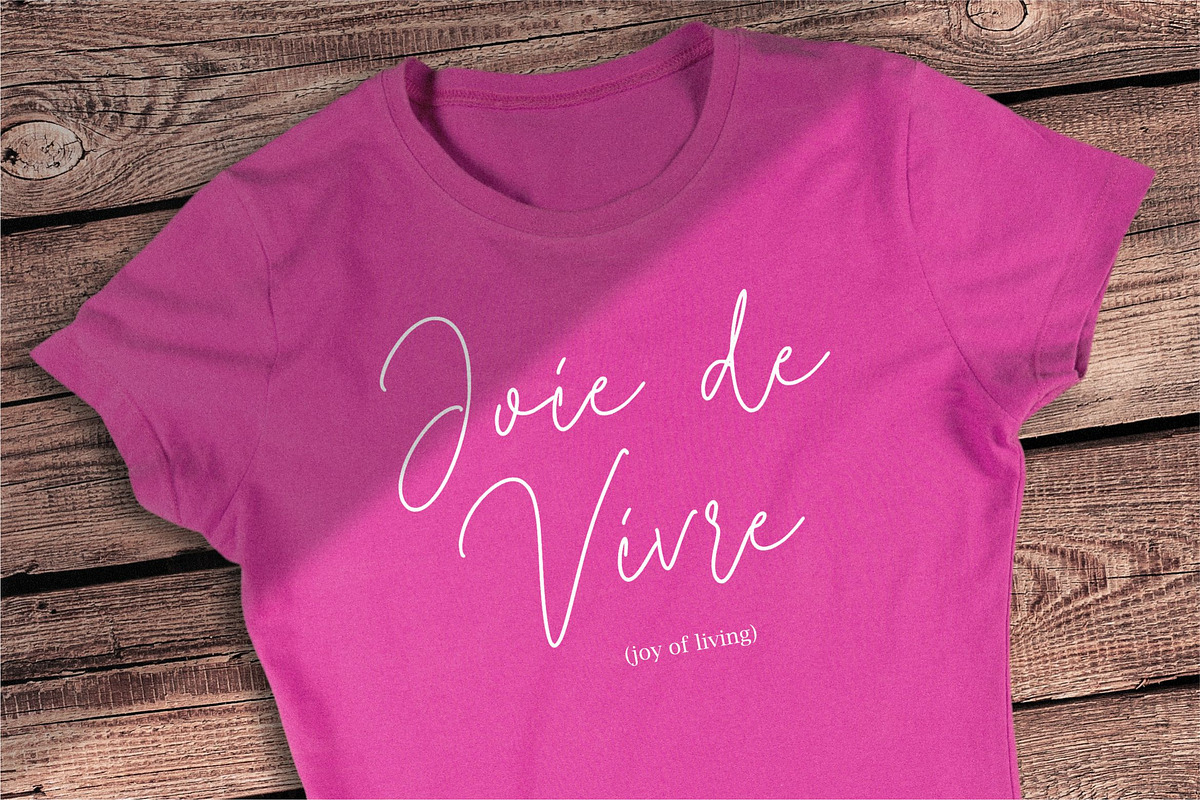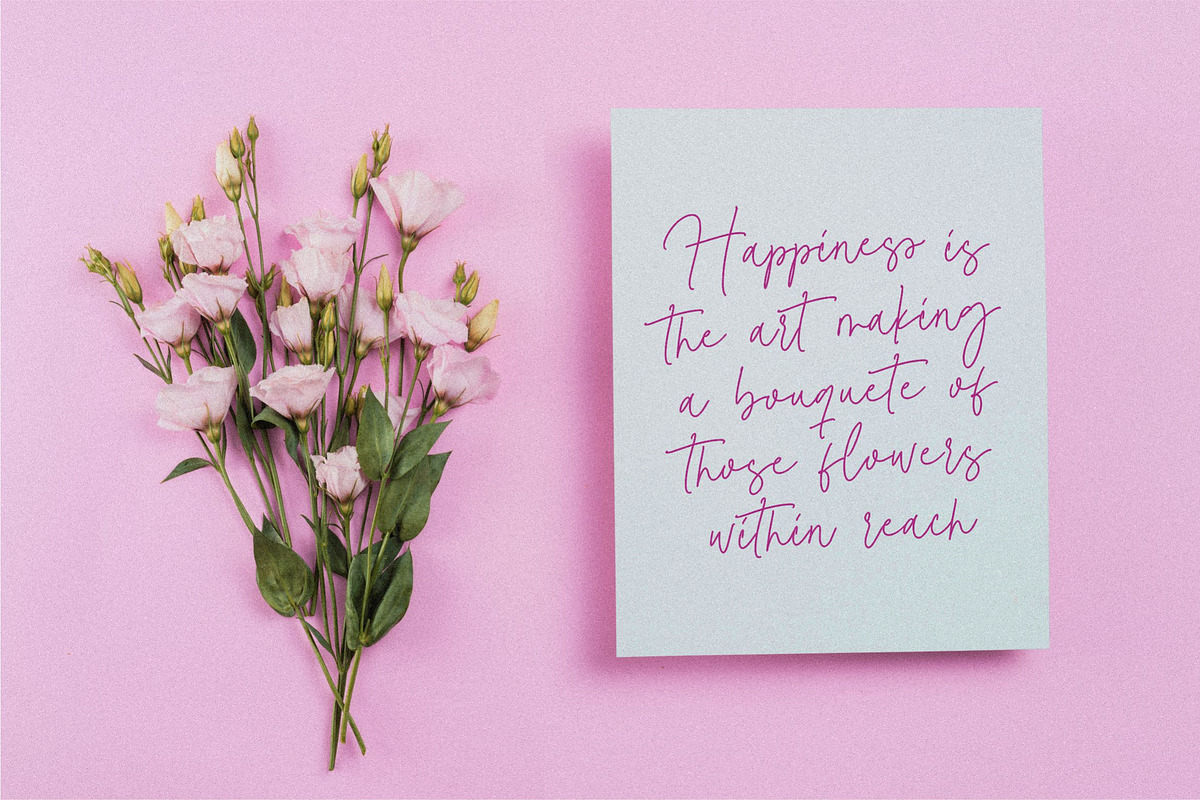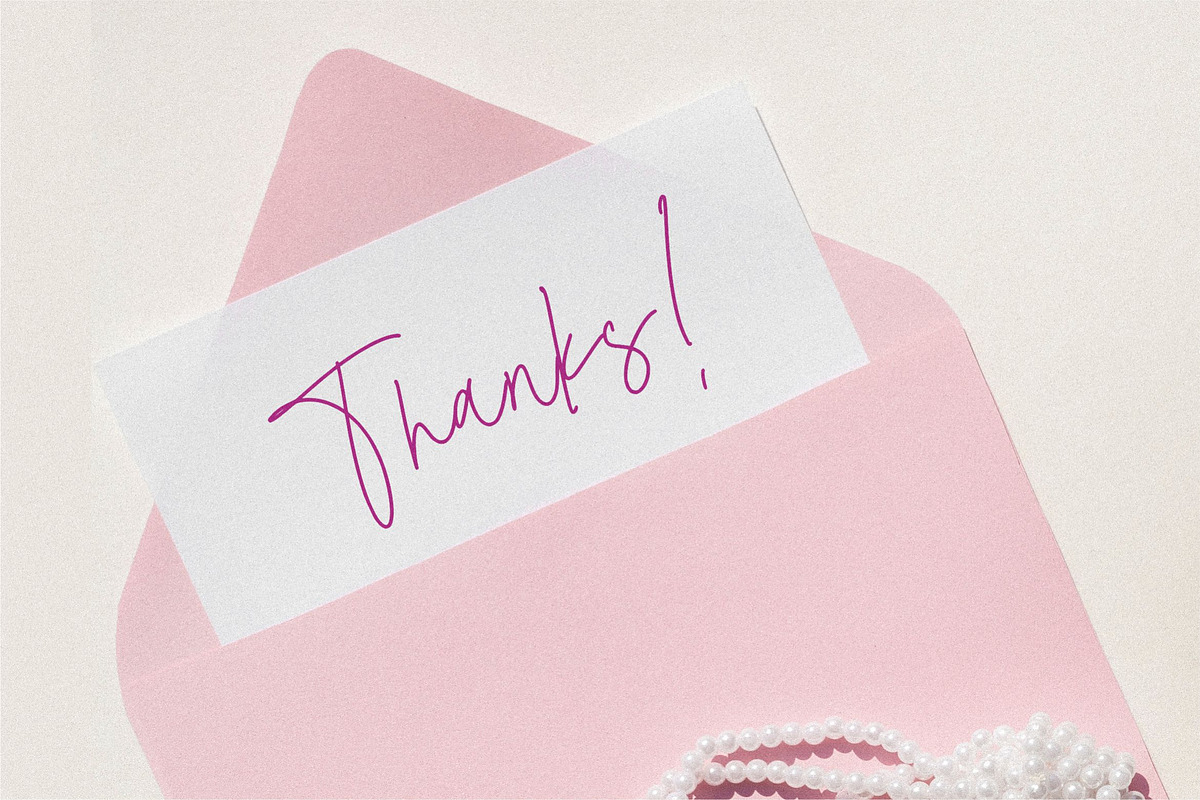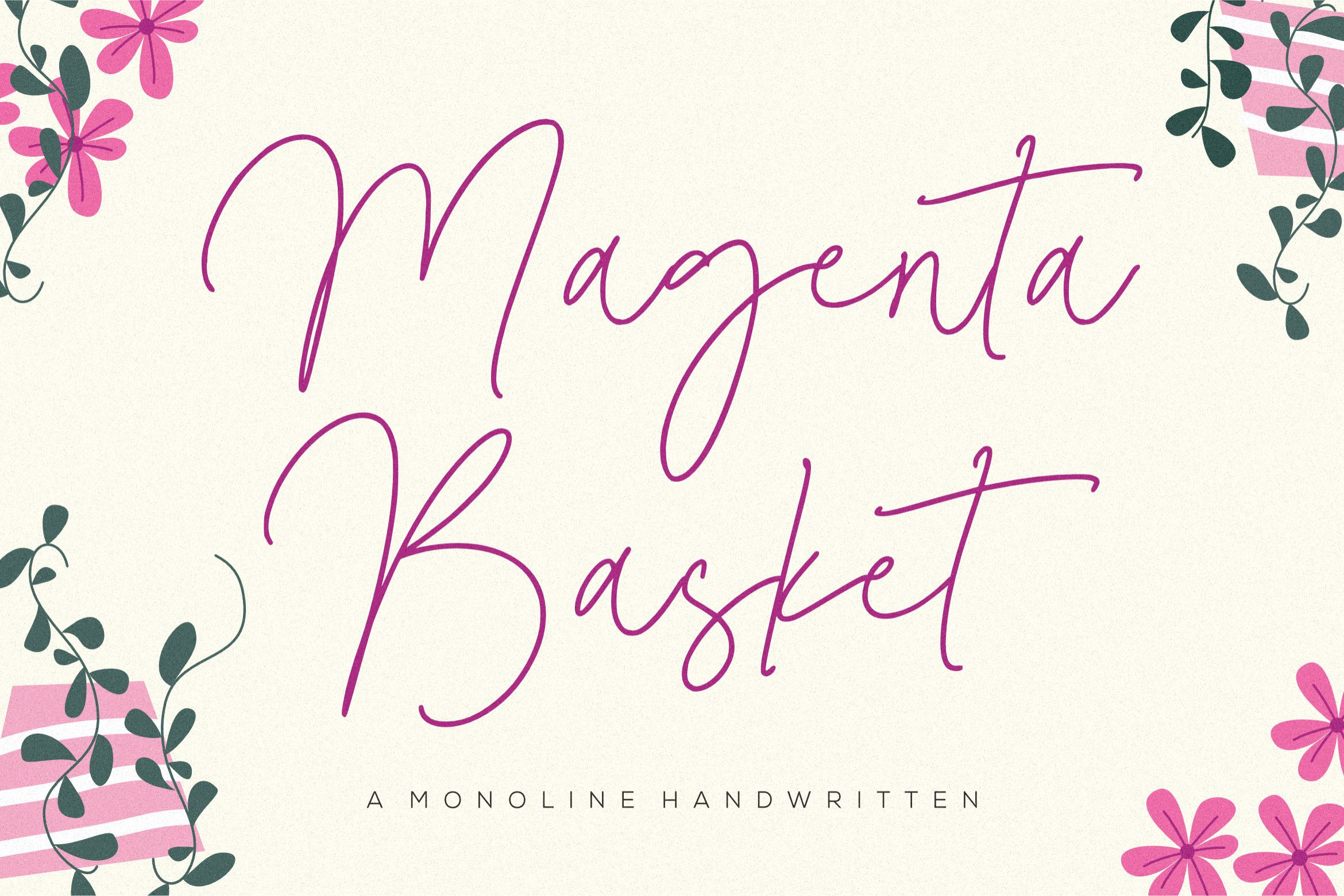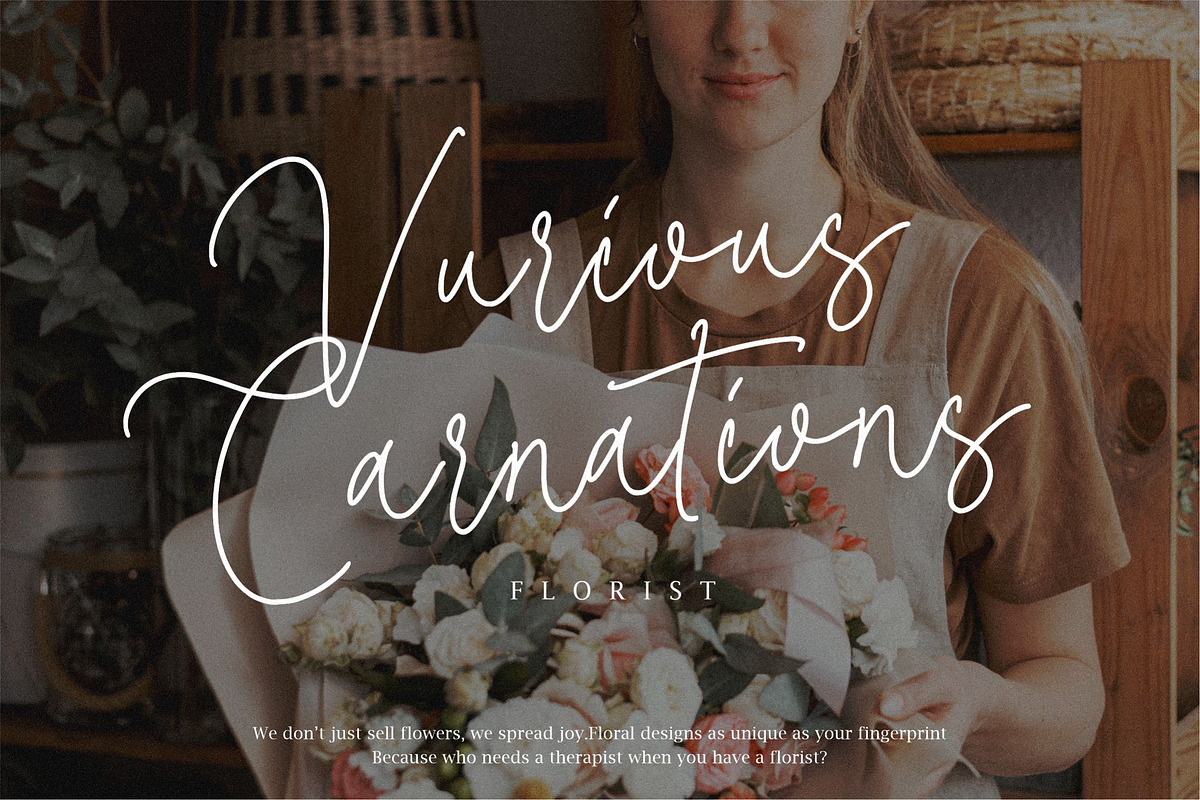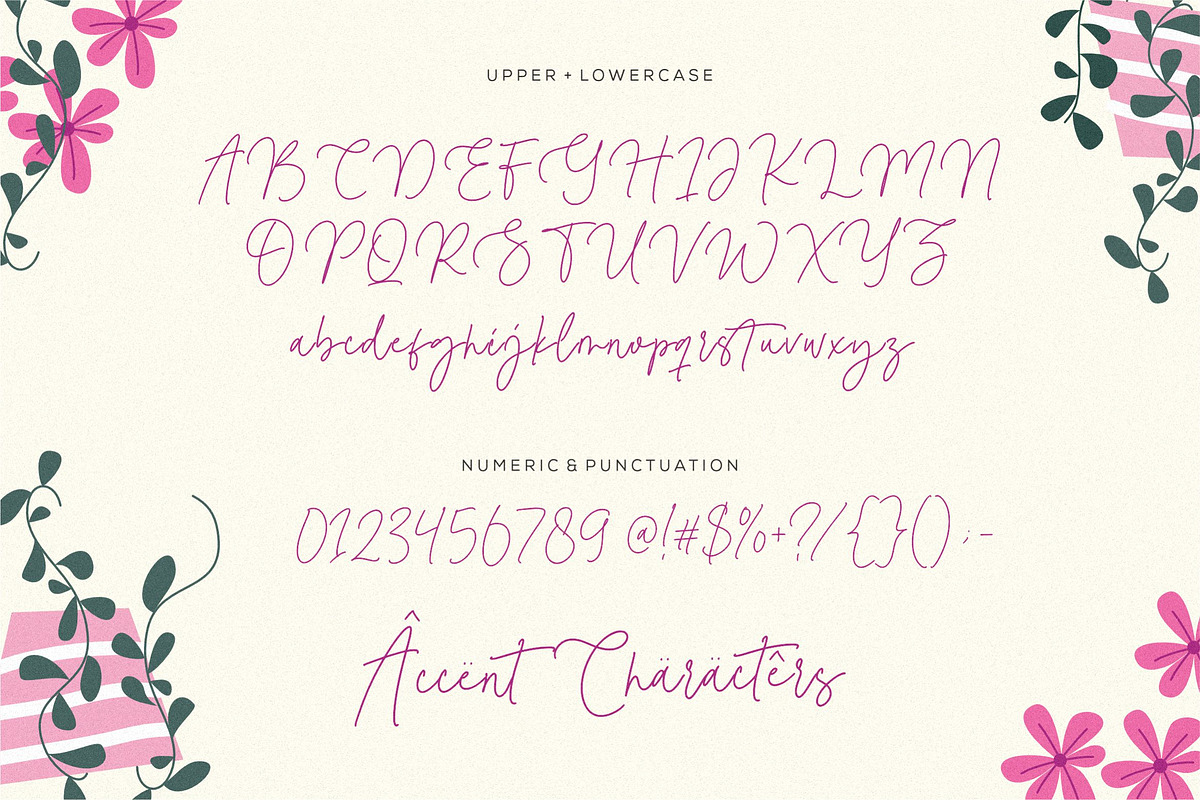
Magenta Basket Font
Magenta Basket - a Monoline Handwritten that's clean, elegant and perfect for a range of design projects! With its smooth, effortless lines and understated sophistication, this font is the perfect choice for those who want a modern look that's still timeless in its appeal.
Crafted with precision and care, this font is incredibly versatile and can be used for a range of design projects, including logos, branding, invitations, packaging, and more. With its simple yet refined aesthetic, it's sure to make a lasting impression on anyone who sees it.